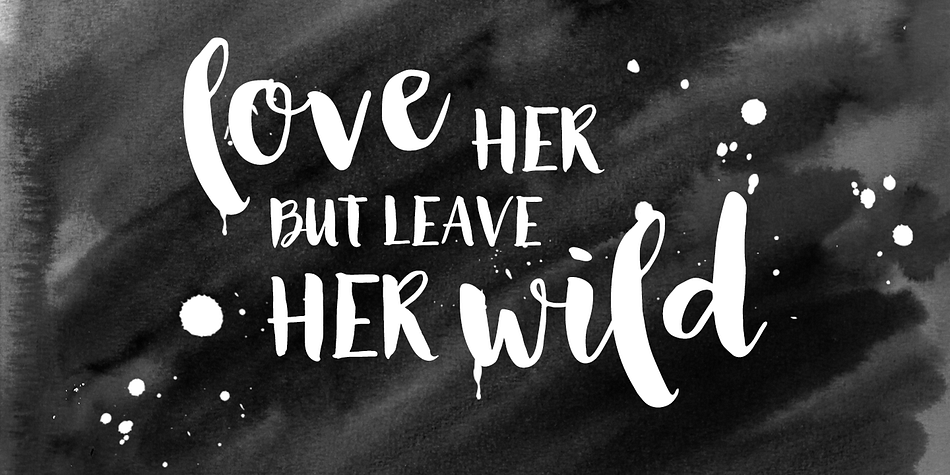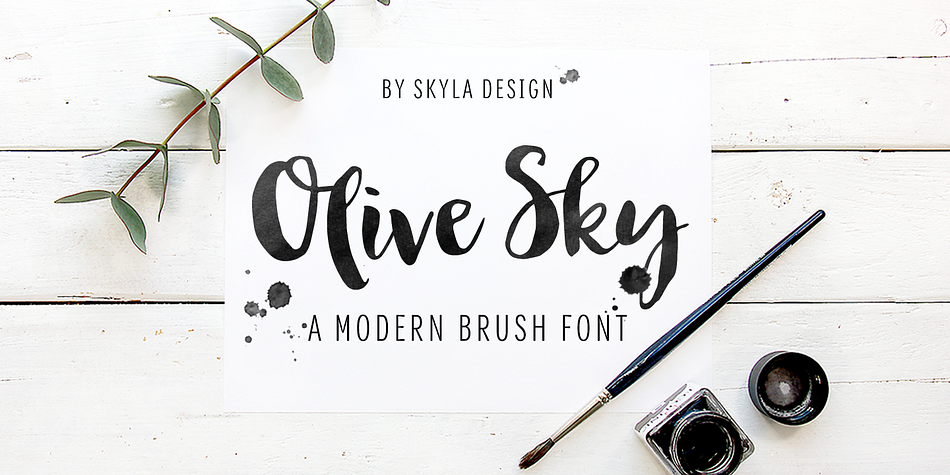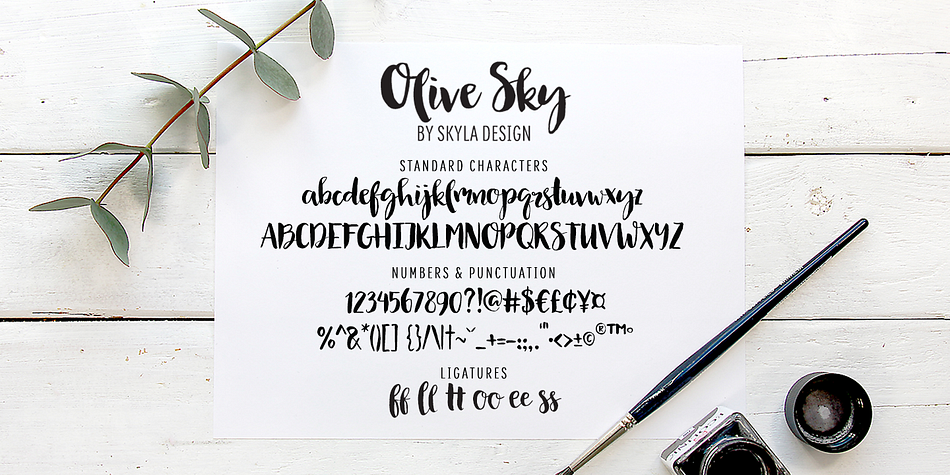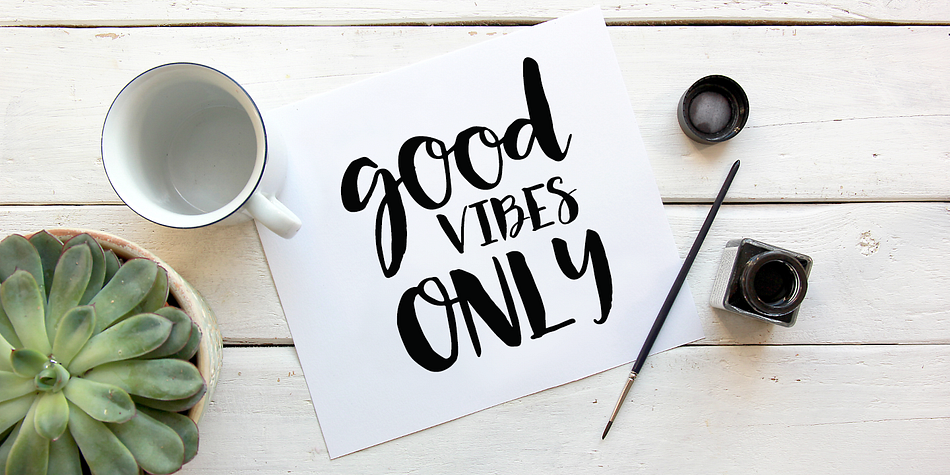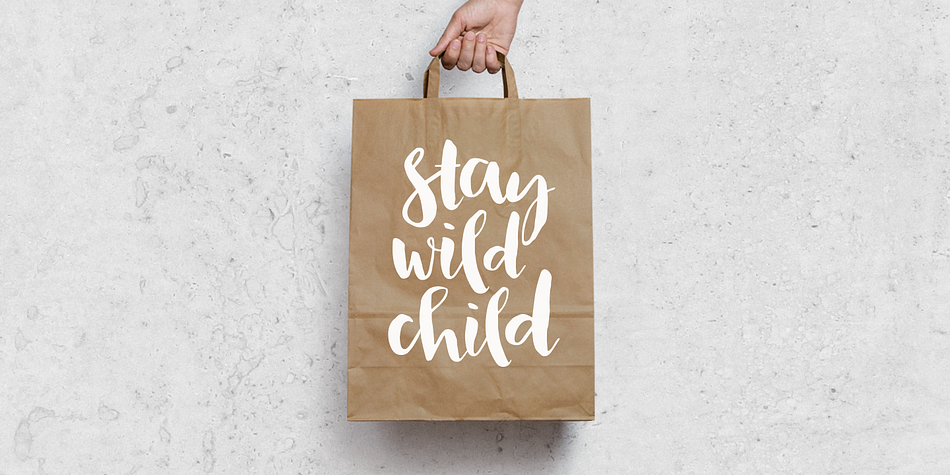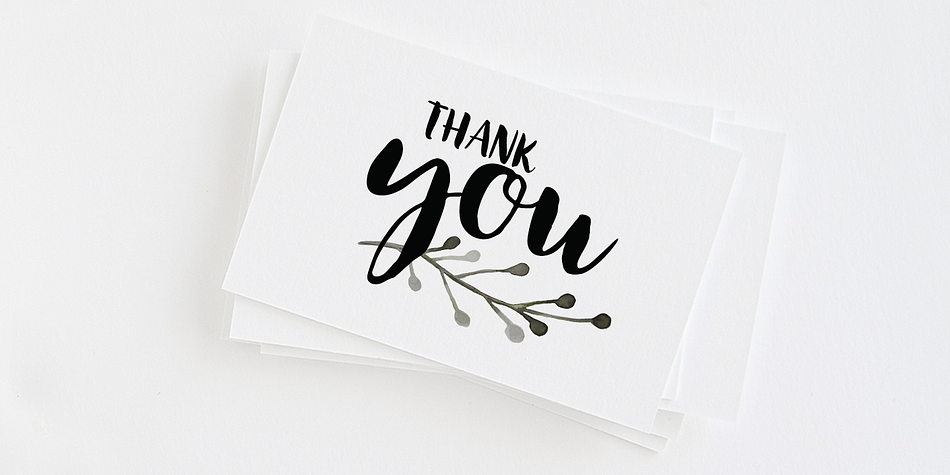
Olive Sky is a brush script and modern calligraphy font published by Angèle Kamp.
Olive Sky is a modern brush font which has been handlettered with a brush and ink. This font will look gorgeous on all your designs, branding materials, blog headers, business cards, quotes and invitations.